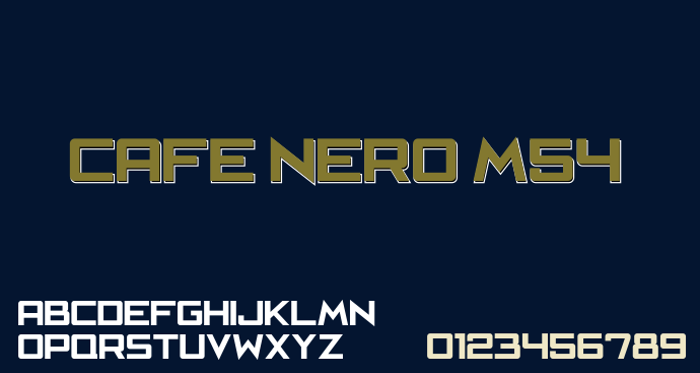
Cafe Nero M54 Font
A font I was inspired to create because I really like the Caffe Nero logo typeface. Good for titling or logo creation, better in bigger point sizes.